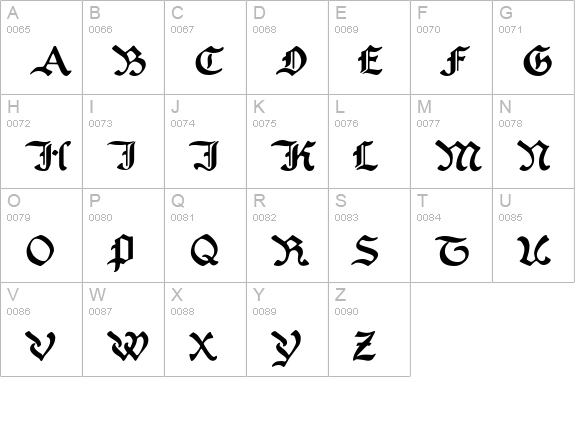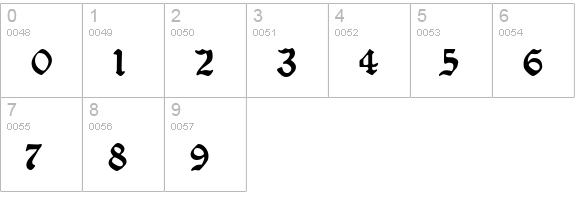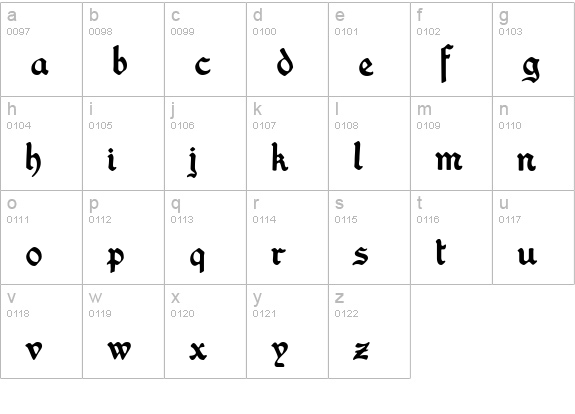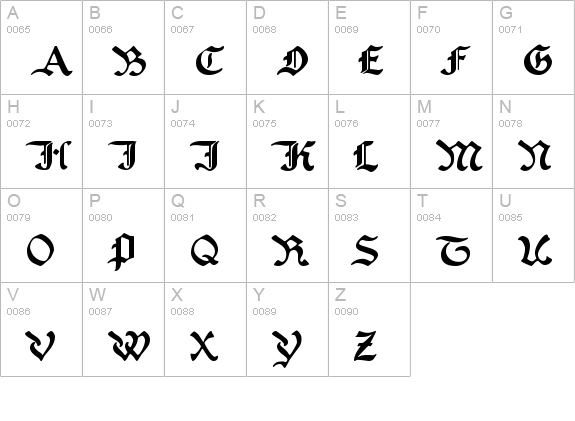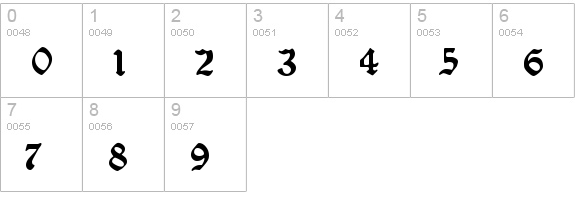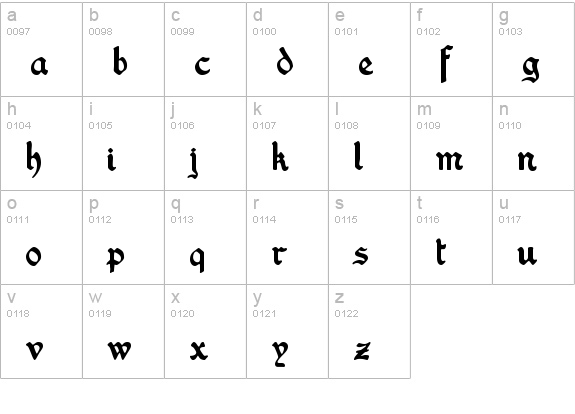
Washington Text Regular Font Details
Washington Text Regular is the standard, neutral variant in the Washington typeface family \xE2\x80\x94 well suited to general body text, paragraphs, and standard typographic work.
Washington Text Regular is a classic and versatile font that exudes elegance and sophistication. With its clean lines and balanced proportions, this typeface is perfect for a wide range of design projects, from branding to editorial layouts. The Washington Text Regular font is a timeless choice for conveying a sense of professionalism and refinement. Its readability makes it ideal for body text in print and digital media, while its subtle details add a touch of character to headlines and titles. What's even better is that Washington Text Regular is available for free download at FontsMarket.com. This means you can easily access this high-quality font and incorporate it into your projects without any cost. Don't miss out on the opportunity to enhance your designs with this beautiful typeface today!